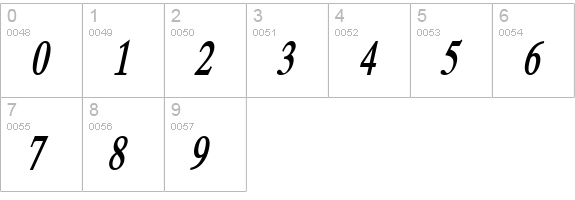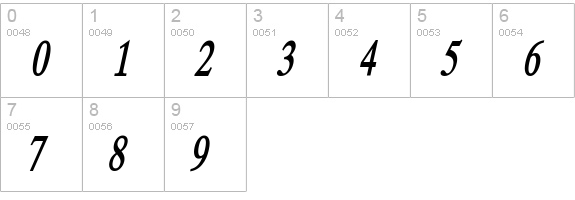
Duke Condensed Bold Italic is a strong, high-contrast, condensed-width, italic variant in the Duke typeface family \xE2\x80\x94 well suited to headlines, attention-grabbing titles, and strong calls-to-action.
Introducing Duke Condensed Bold Italic font, a sleek and modern typeface that exudes confidence and sophistication. With its bold and italic design, this font is perfect for making a statement in headlines, titles, and branding materials. The condensed style adds a touch of elegance while maintaining readability, making it versatile for a variety of design projects. Whether you're creating posters, logos, or invitations, Duke Condensed Bold Italic font is sure to make a bold impact. The best part? Duke Condensed Bold Italic font is completely free to download at FontsMarket.com. Don't miss out on adding this stylish and versatile font to your collection today!